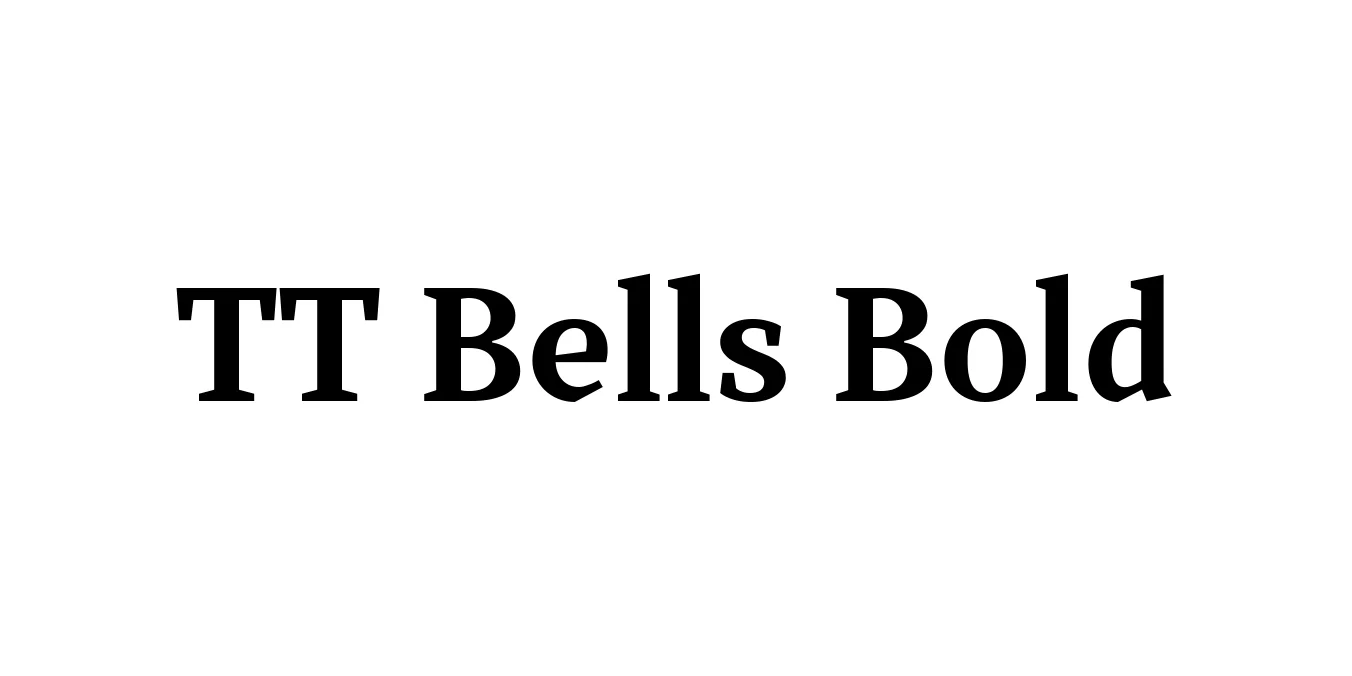
TT Bells Bold
Designed by TypeType Team
TT Bells Bold is a sophisticated serif typeface that draws its inspiration from the traditional aesthetics of bell manufacturing and old-style calligraphic techniques. Developed by the TypeType Team, this font is characterized by its sharp, pronounced serifs and a balanced contrast that evokes a sense of historical gravity and modern elegance. The Bold weight specifically amplifies these features, providing a sturdy and authoritative presence that is perfect for high-impact visual communication.
Beyond its aesthetic appeal, TT Bells Bold is engineered for high performance in various environments. It bridges the gap between classical typography and contemporary digital needs, ensuring that each character maintains its integrity and legibility across different resolutions. Whether used in high-end editorial layouts or luxury branding, this font rings with a clarity and distinction that justifies its name, making it a staple for designers looking for a refined yet powerful serif.
TT Bells Bold Best Uses
High-end magazine headlines and journal titles.
Luxury corporate identities and premium product packaging.
Impactful hero sections and sophisticated website headers.
Book covers, posters, and formal event invitations.